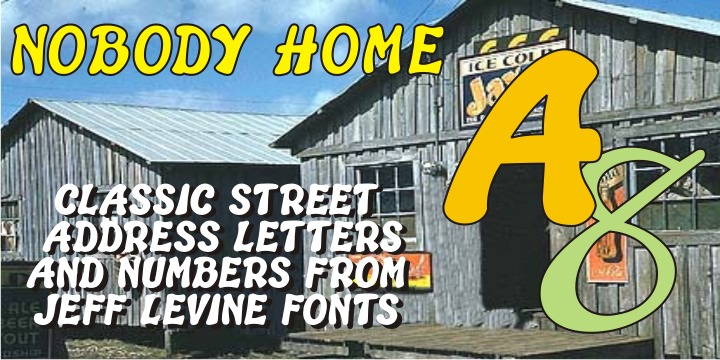
Nobody Home JNL is unusual in nature as it combines two vintage typestyles into one font. Both have been used for home and property identification for decades and still remain popular. Over the years the letters and numbers have been made of cast steel, aluminum, brass and plastic.
The alphabet is in a distinctly bold, asymmetrical style, while the numbers almost take on a calligraphic feel. More…
There is just a basic character set - alphabet, numerals and simple punctuation. While the font has been reasonably spaced and kerned, it’s best to remember that neither type design was made with digital technology in mind, so it’s suggested to adjust your layout manually for optimum results.
Nobody Home JNL is best-suited for replicating street addresses, apartment numbers on doors, and homeowner (or apartment house) names on buildings - whether in print design or as plotter-cut vinyl graphics.